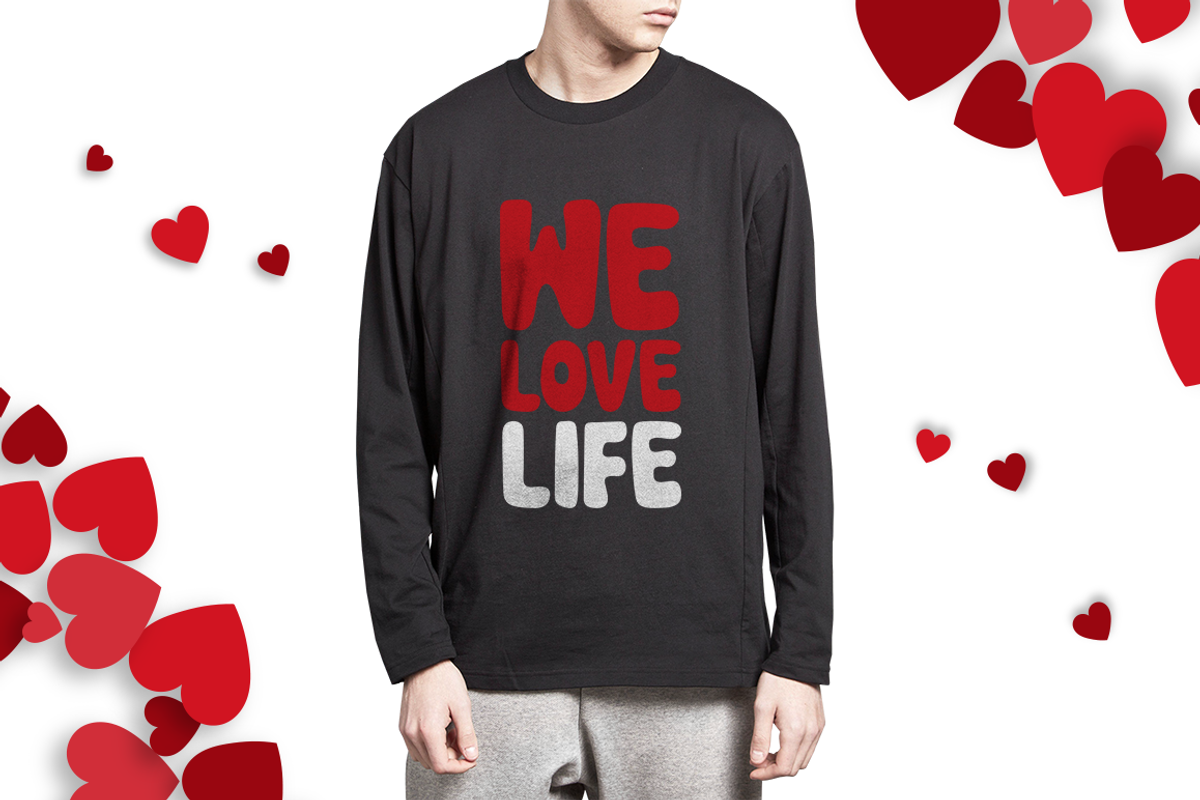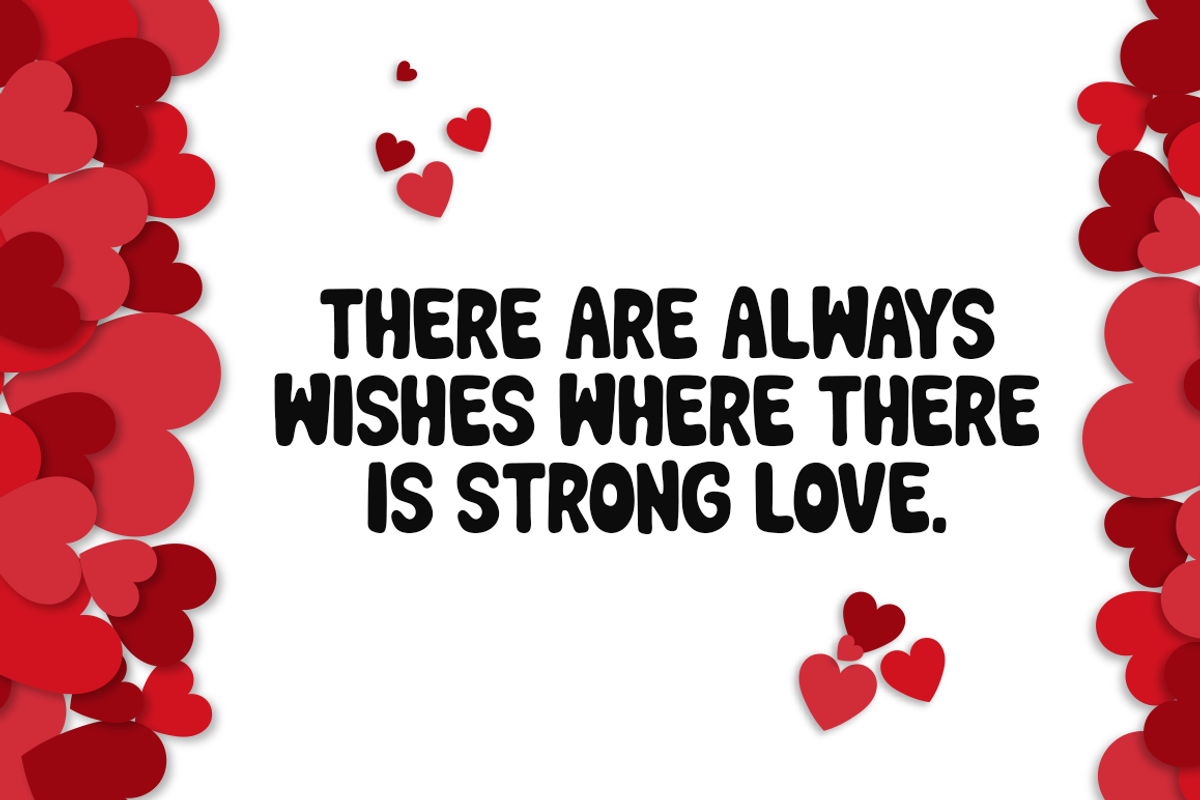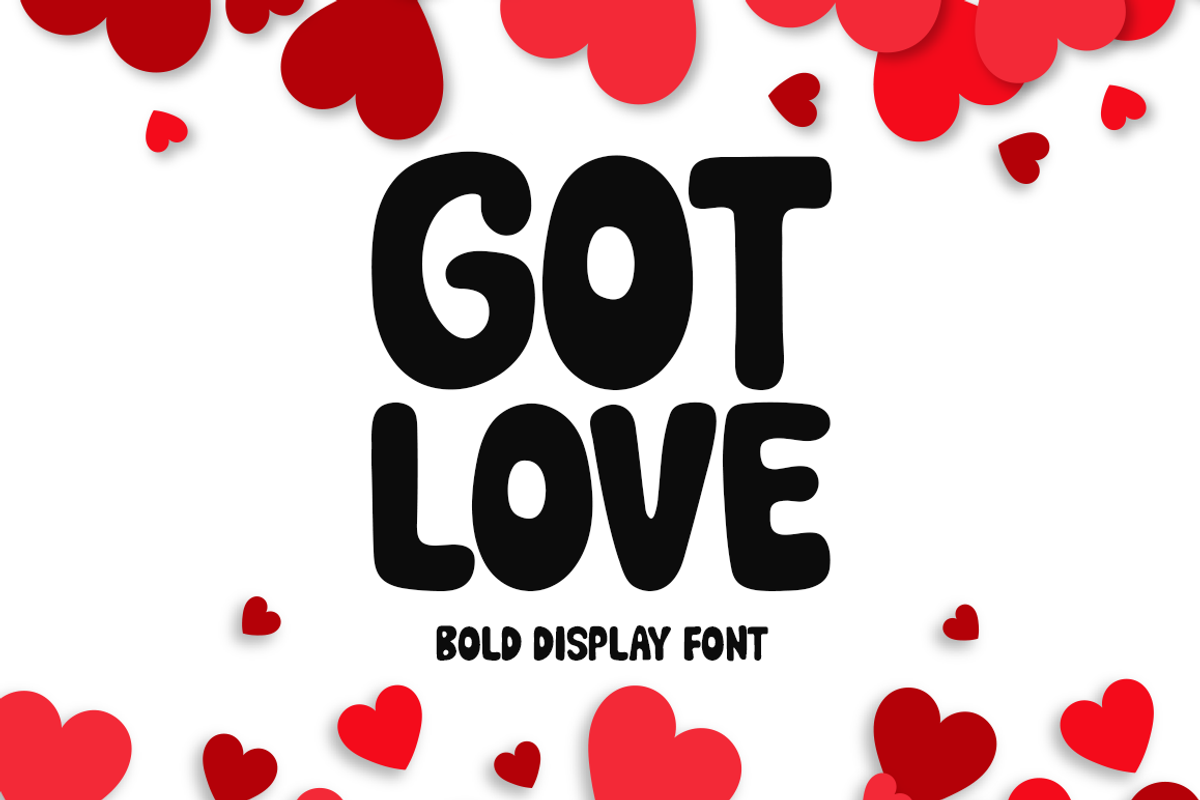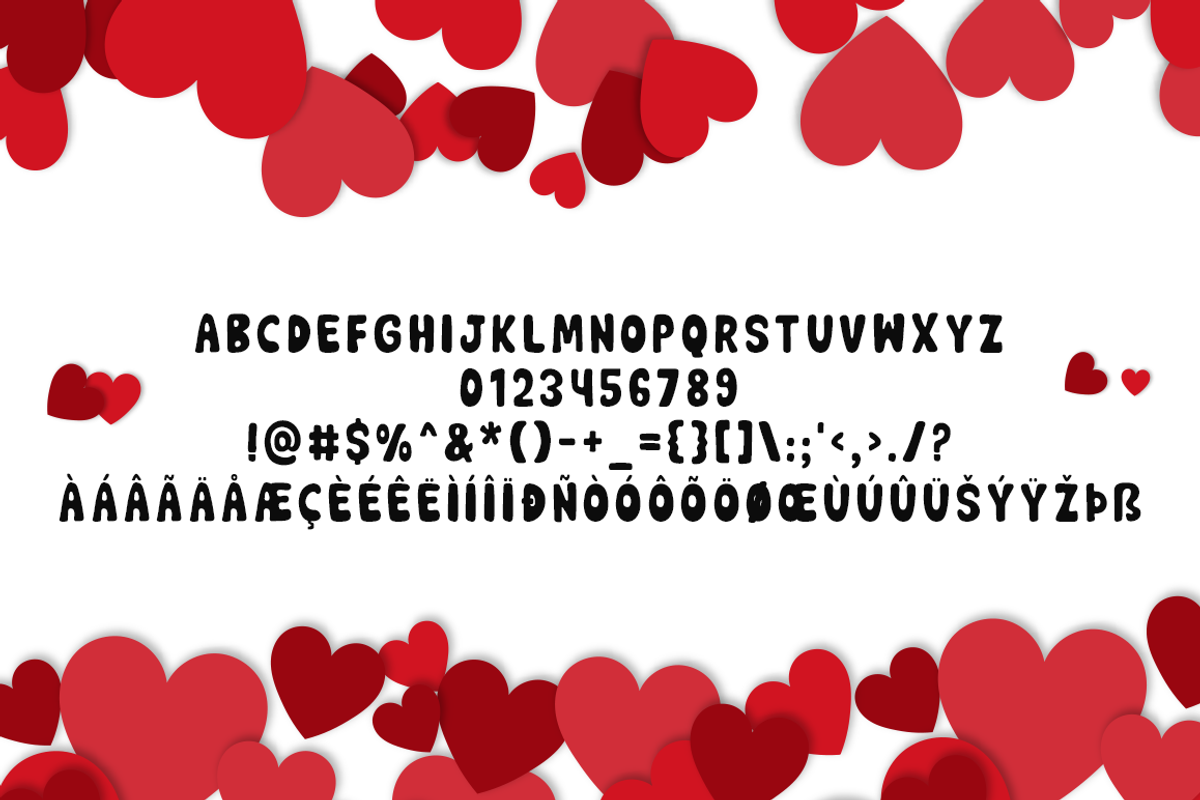
Got Love Typeface
Introducing Got Love!
A beautiful display font is called Got Love. Add it to your original ideas to see how it helps them stand out since it can be readily suited to a huge range of projects.
Includes a range of multilingual support